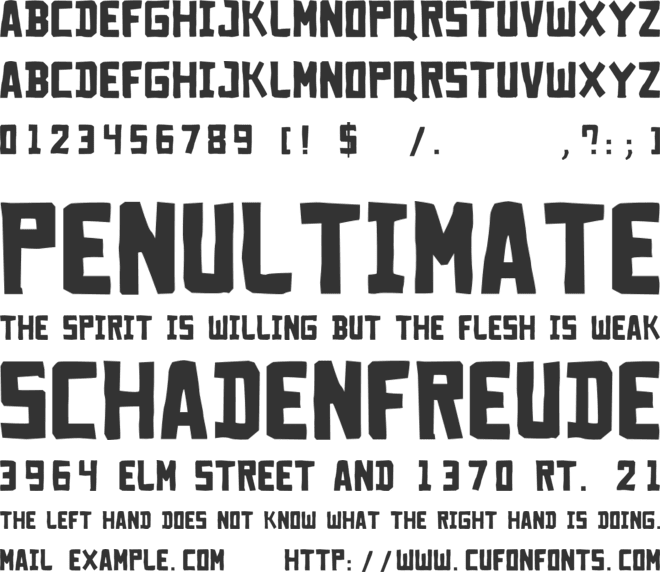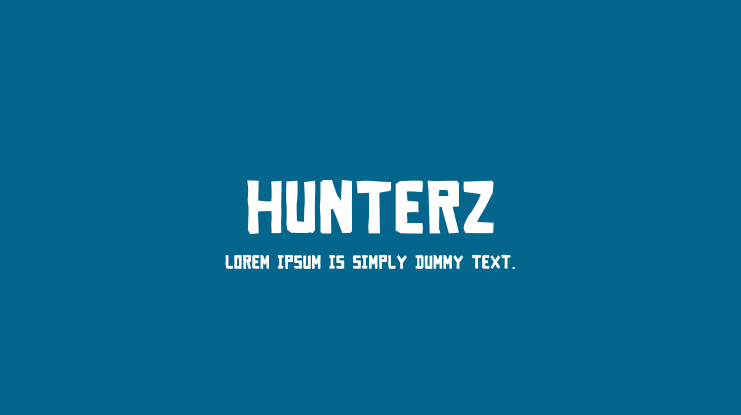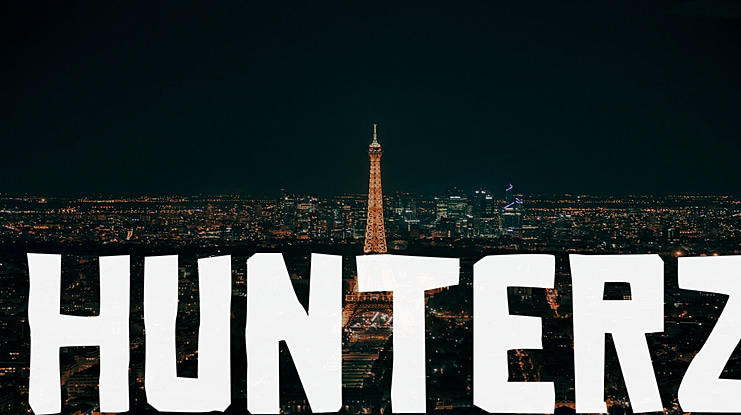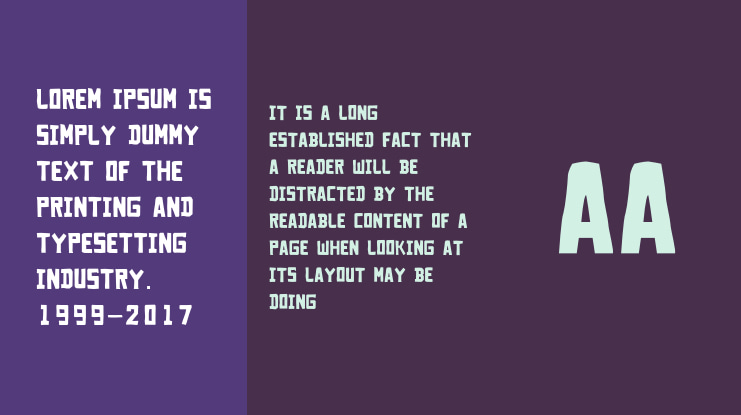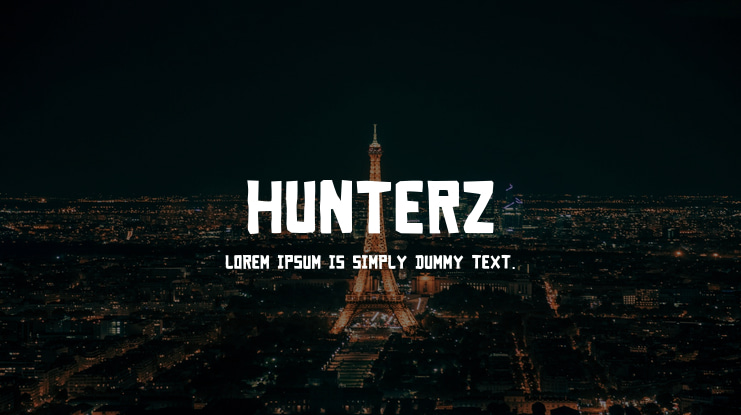
Hunterz Font
CasinosHunter has developed a new fresh and inspiring uppercase font called Hunters. It can be downloaded freely from the page on site, and used by anyone completely free of charge for any online project where such a need for a new font arises. CasinosHunter does all the design elements for the platform by own effort, so developing a new font may be a bit easier for such an experienced team. But CasinosHunter shares this font with anyone who needs it!